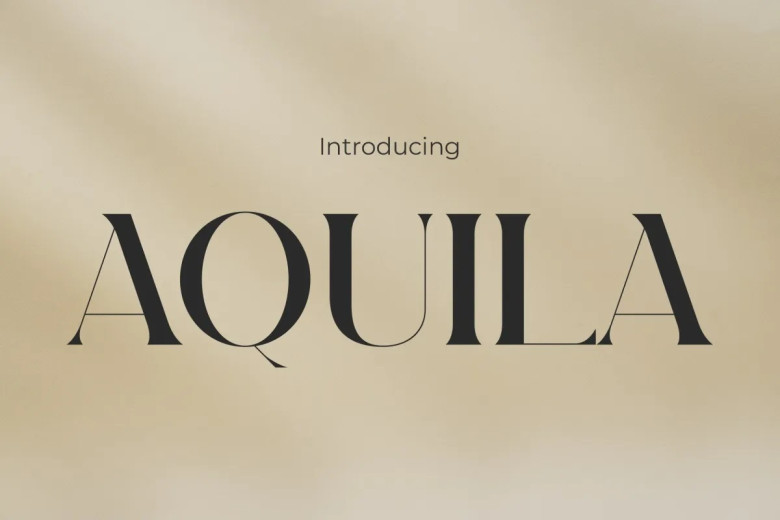
Aquila Font
Discover beauty with each stroke with our beautiful Aquila font! Aquila boasts an elegant typographic design with its sophisticated touch of elegance that not only offers an enjoyable visual experience but also adds sophistication that seamlessly merges fashion, femininity and feminine charm into an incredible font experience.
Ideal for projects needing the most unique accent; logos, quotes invitations and any design needing timeless elegance – each letter of Aquila stands as a symbol of timeless beauty that you can explore your imagination with!
Aquila Serif Font